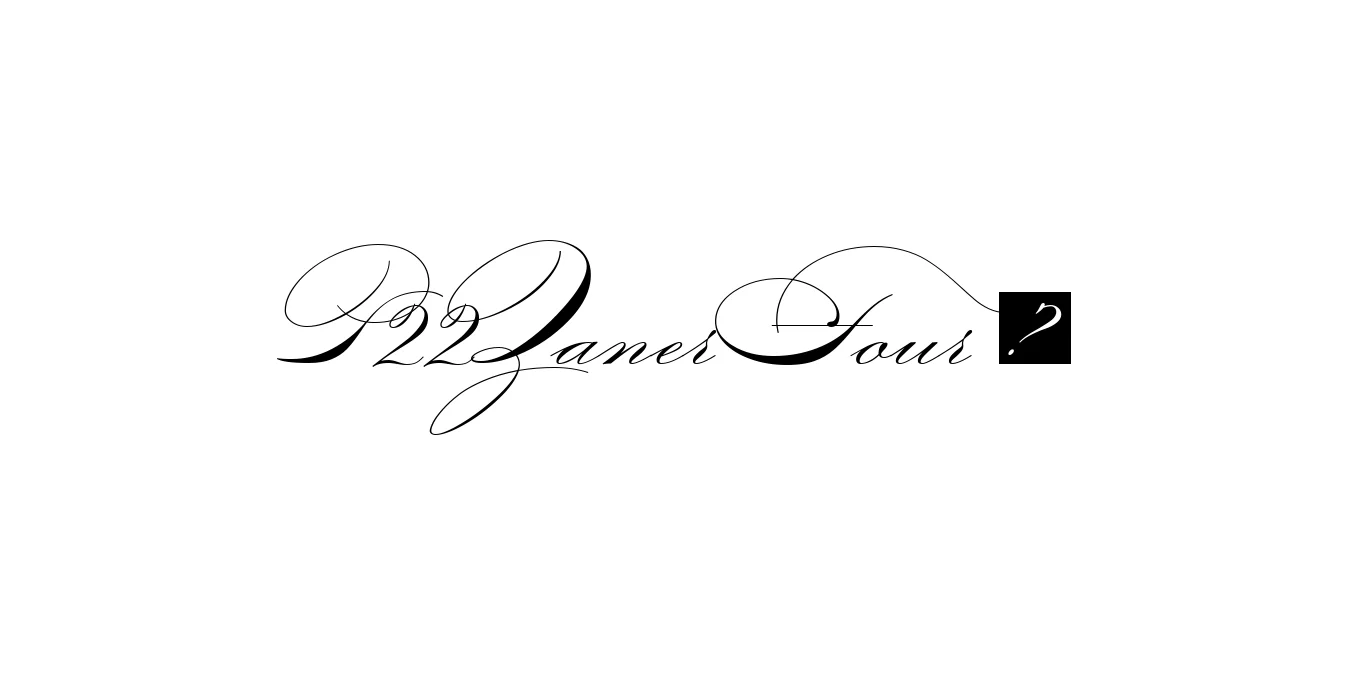
P22ZanerFour ☞
Designed by Paul Antonio & Richard Kegler
P22 Zaner Four is an exquisite example of digital calligraphy, belonging to a larger suite inspired by the legendary penmanship of Charles Paxton Zaner. Developed by Paul Antonio and Richard Kegler for the P22 Type Foundry, this font captures the delicate essence of late 19th-century American Spencerian and Ornamental script. It features flowing strokes and intricate flourishes that represent the pinnacle of the Golden Age of Penmanship.
The font is meticulously crafted to replicate the natural pressure and rhythm of a traditional pointed pen. P22 Zaner Four is particularly noted for its sophisticated ligatures and alternate characters, making it a premier choice for high-end invitation design and formal documentation. It serves as both a historical tribute and a functional tool for modern designers seeking an authentic, hand-drawn aesthetic that exudes class and tradition.
P22ZanerFour ☞ Best Uses
Perfect for high-end, formal wedding invitations, envelopes, and place cards.
Ideal for diplomas, awards, and official historical documentation needing an authentic look.
Used for logos and high-end packaging that require a classic, hand-lettered feel.
Excellent for drop caps and decorative headlines in premium lifestyle magazines.